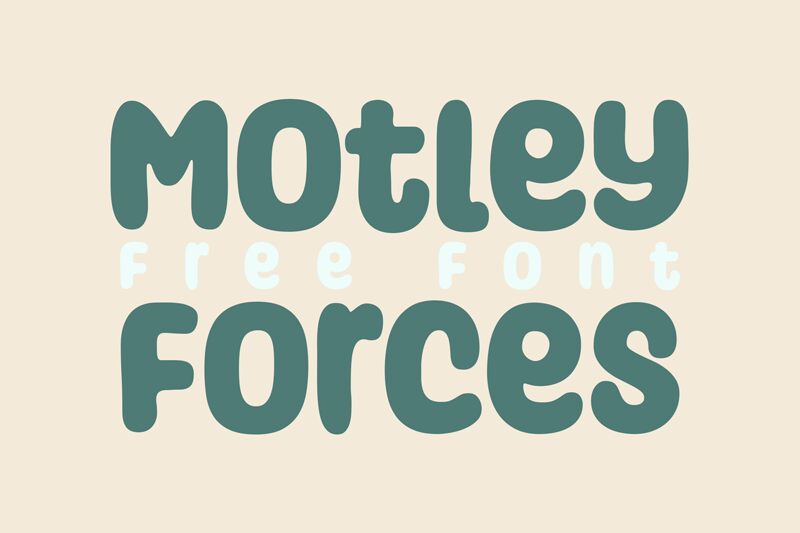
Dive into the playful charm of Motley Forces, a cartoon-inspired display font that exudes energy and fun.
Designed by Niskala Huruf, this extra-bold typeface is a game-changer for creative projects seeking a splash of whimsy. Its robust character set is versatile enough to captivate in comic strips, empower eye-catching headlines, or bring an animated twist to branding. With Motley Forces, your designs will not just speak; they'll shout with personality!
Perfect for when your project needs that extra punch of liveliness and originality.
Motley Forces